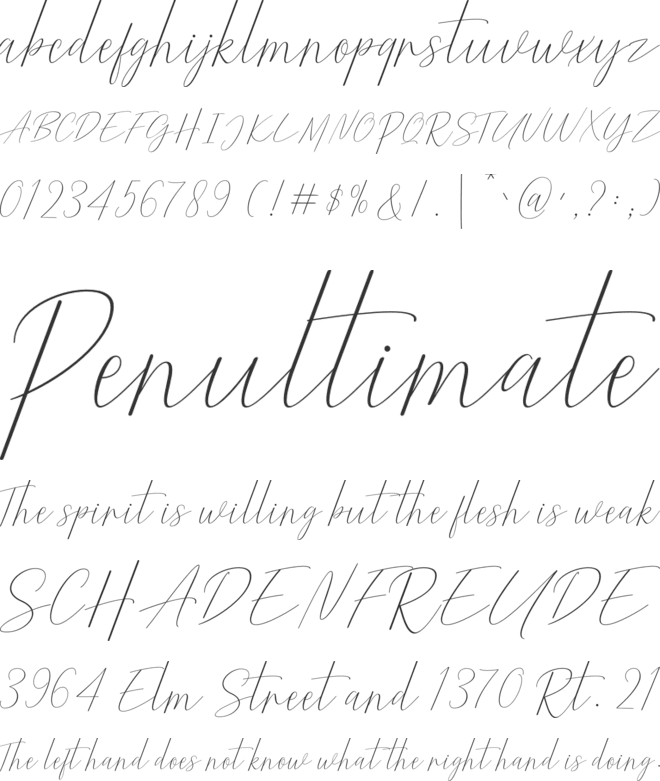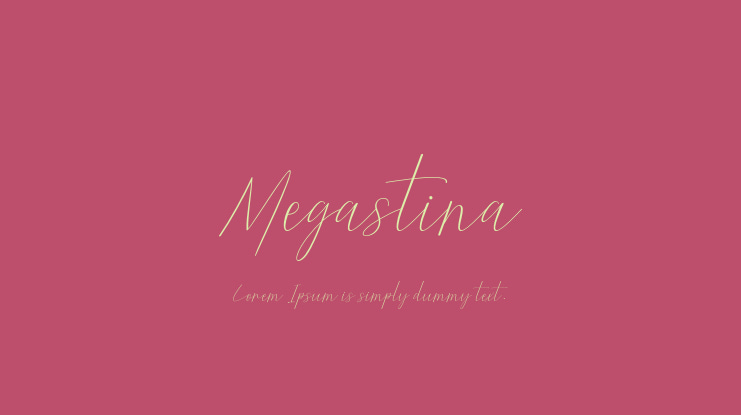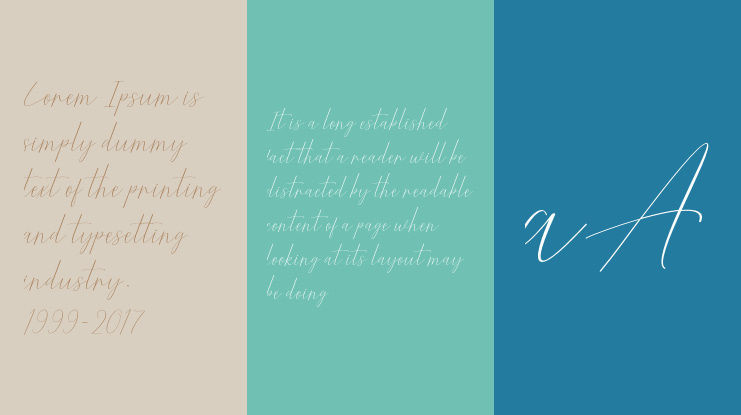
Megastina Font
It features a contemporary, natural, and fresh handwritten style that will give your ideal designs a special touch.
This typeface is ideal for branding since it has a variety of choices that let you create a logo that is both feminine and masculine. It also includes a few markings that lend stiffness to the signature, emphasizing the organic feel of the handwriting.